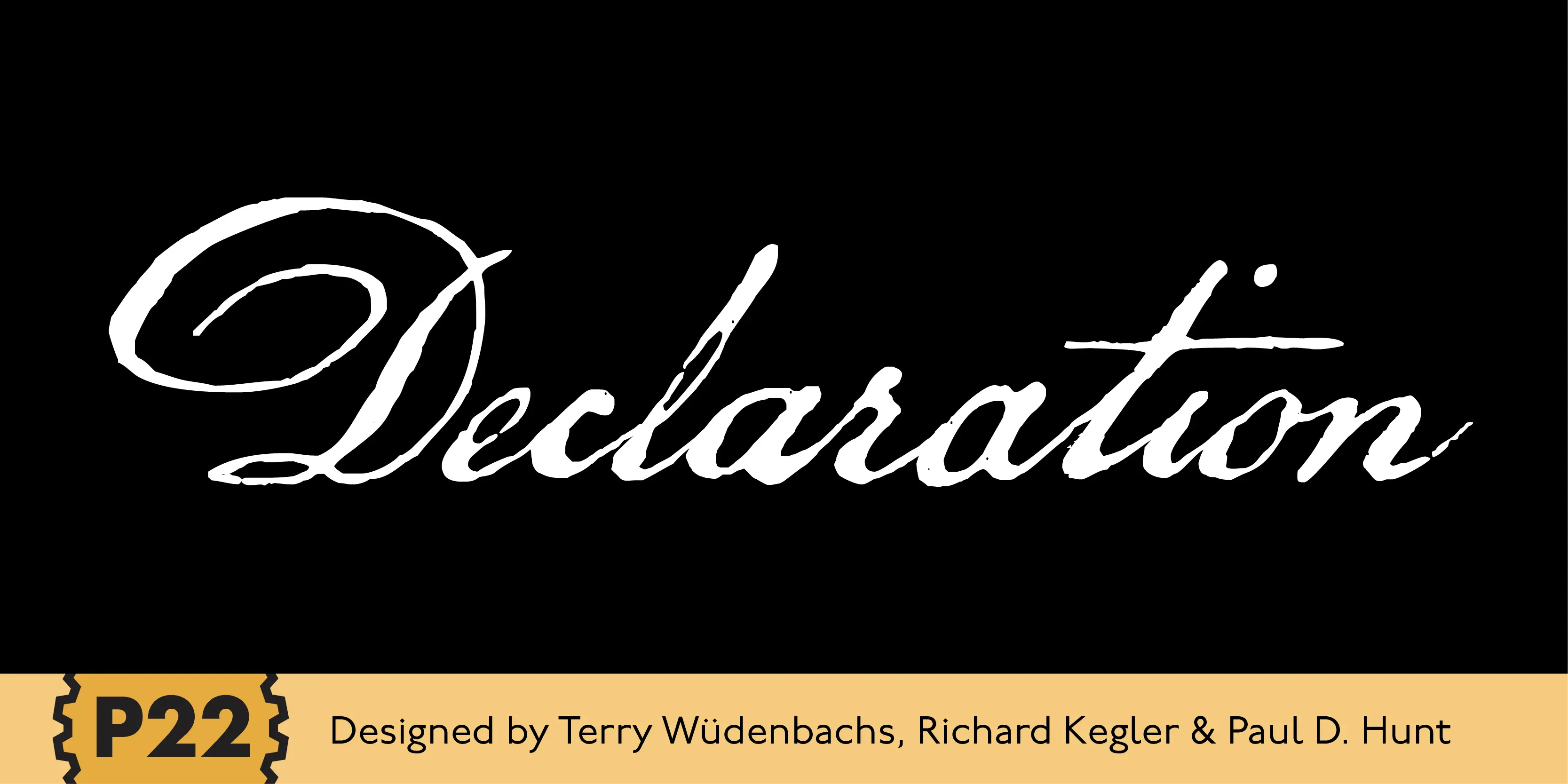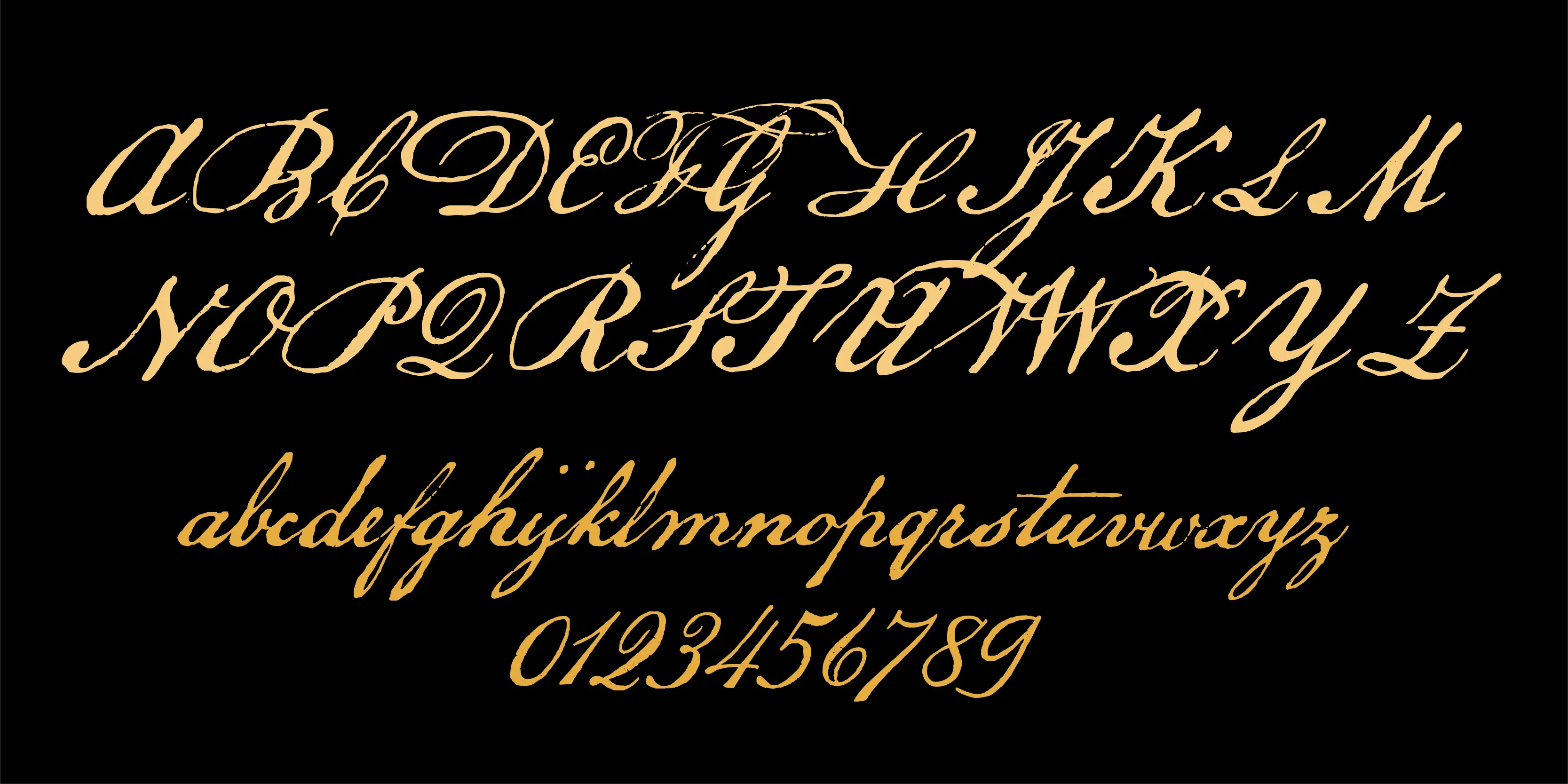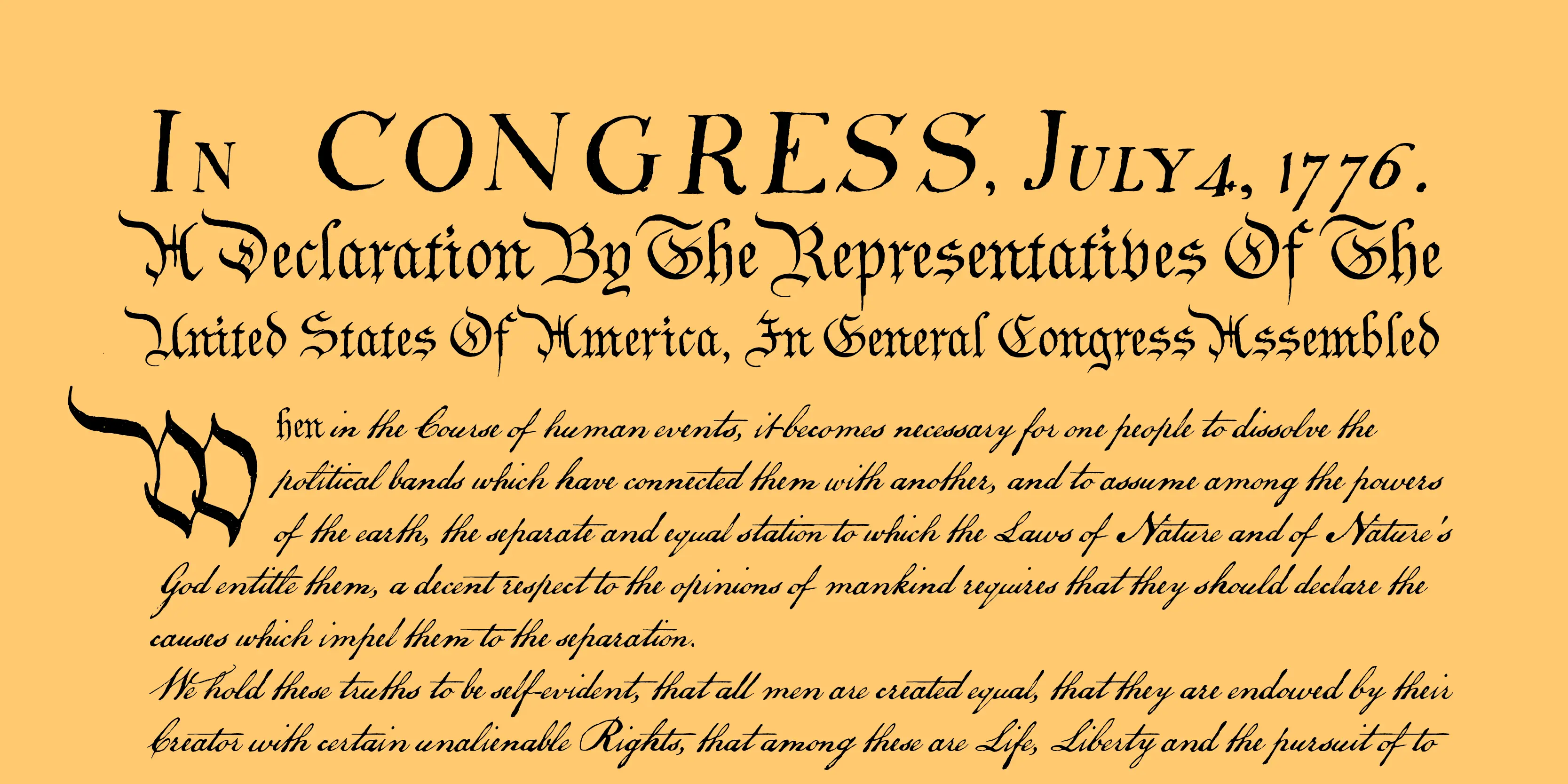
Declaration Font Family
Declaration
The new Declaration font set from P22 features two lettering fonts based on the Declaration of Independence of the United States of America. A script font that features the look of classic 18th Century penmanship, with a slightly irregular edge, as found on documents made with ink quill pens on vellum or parchment. The accompanying Blackletter font is also derived from the Declaration of Independence as it was used for emphasis and of course the famous document title itself. A third font, which features the signatures of the signers of the Declaration of Independence, is also included.